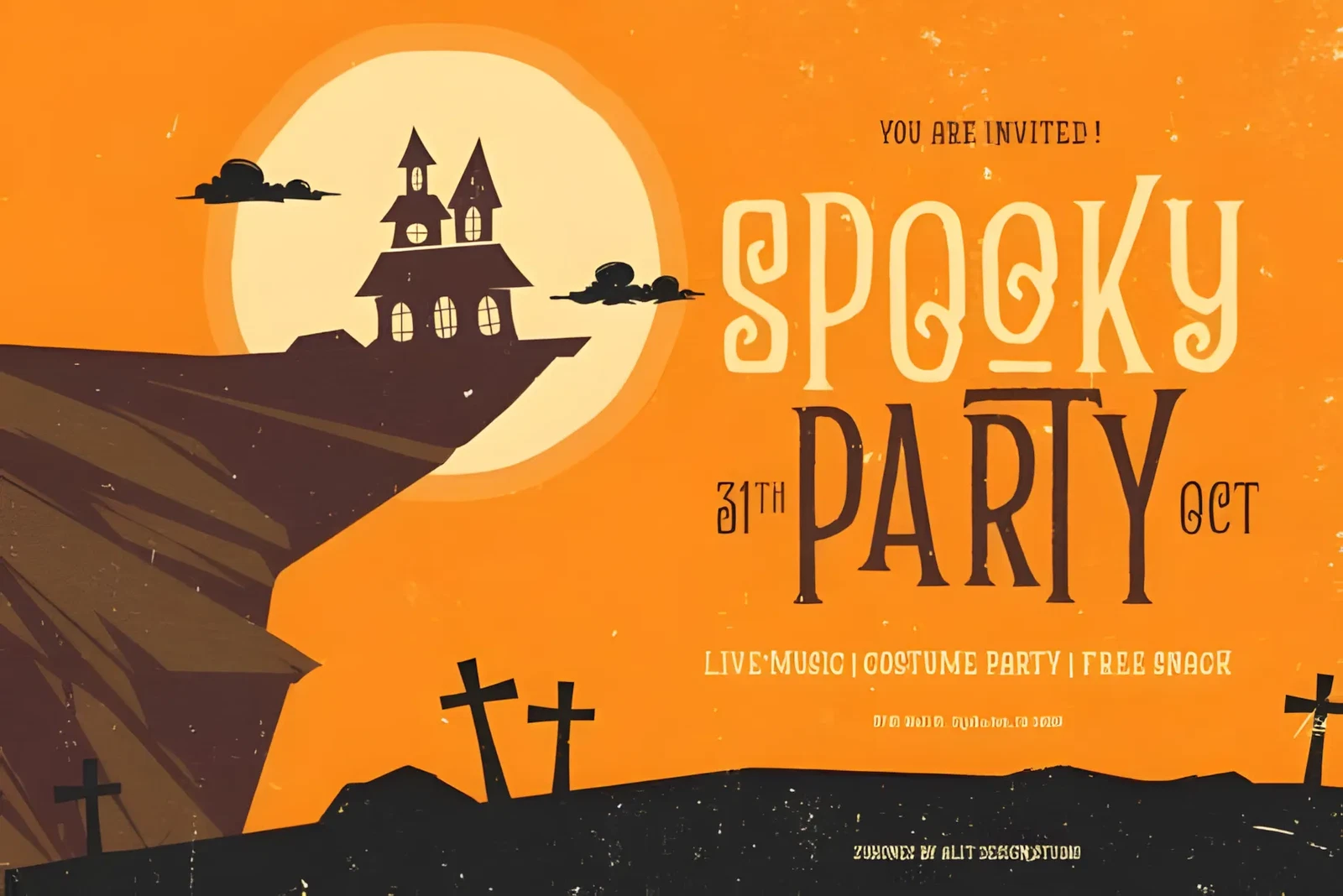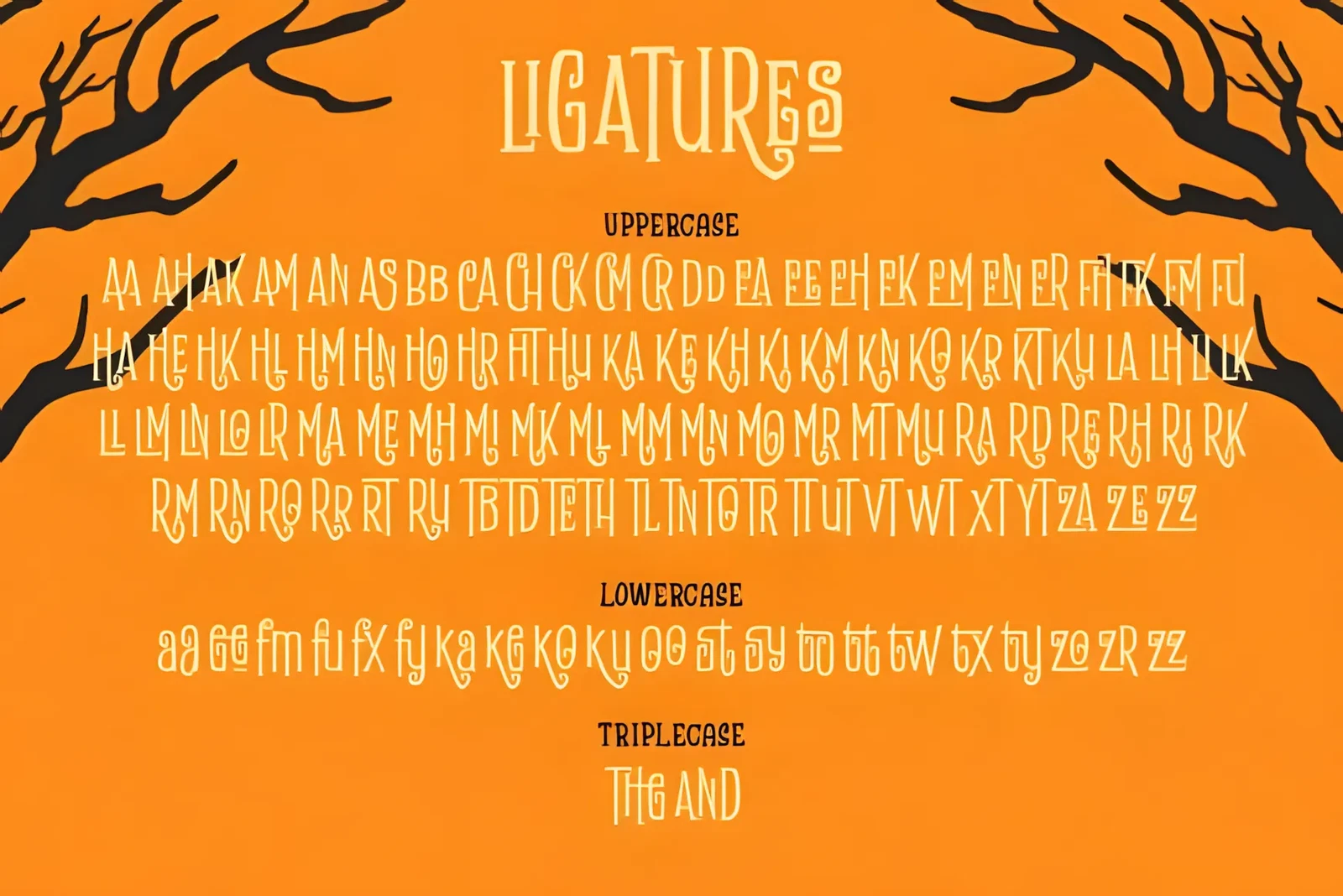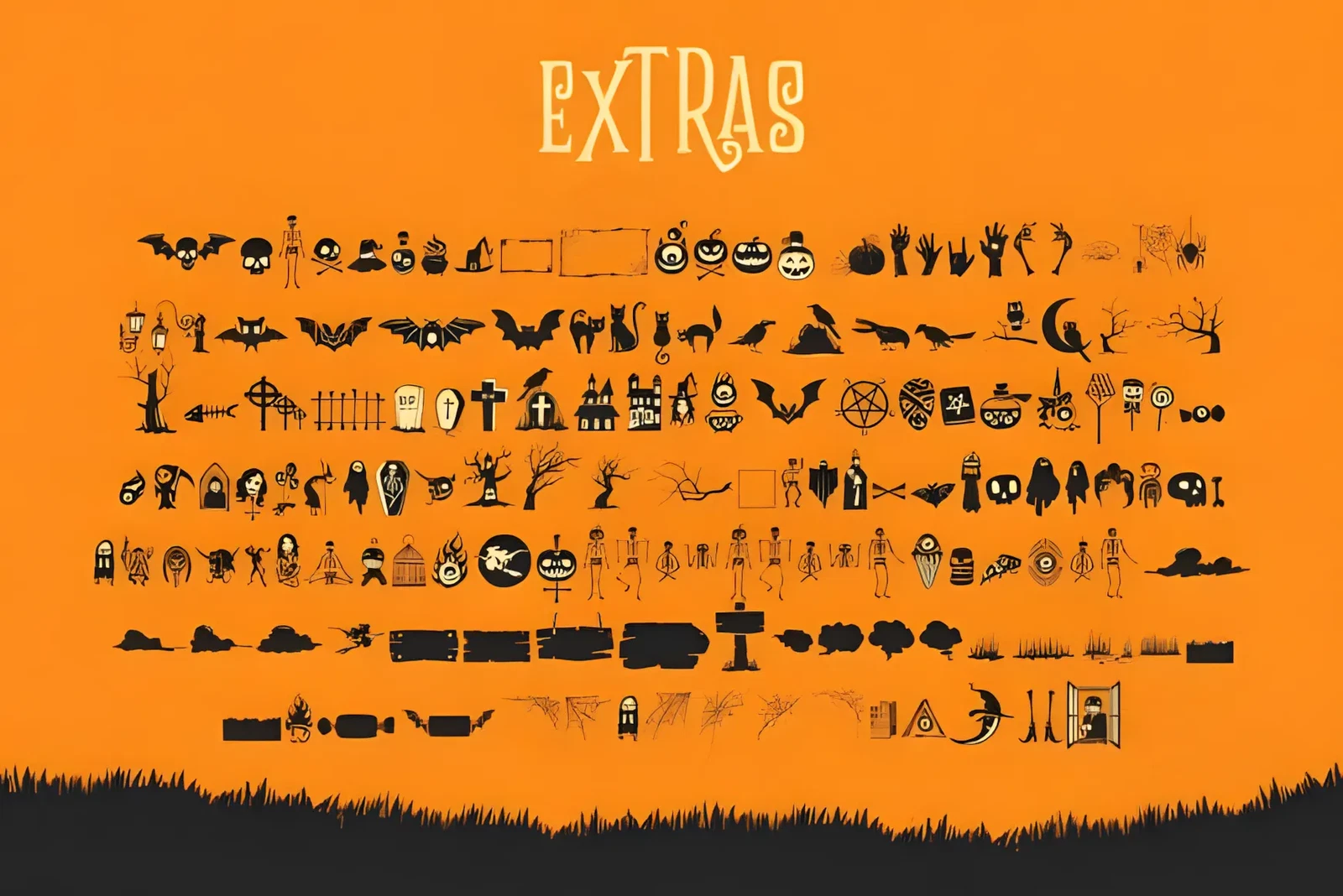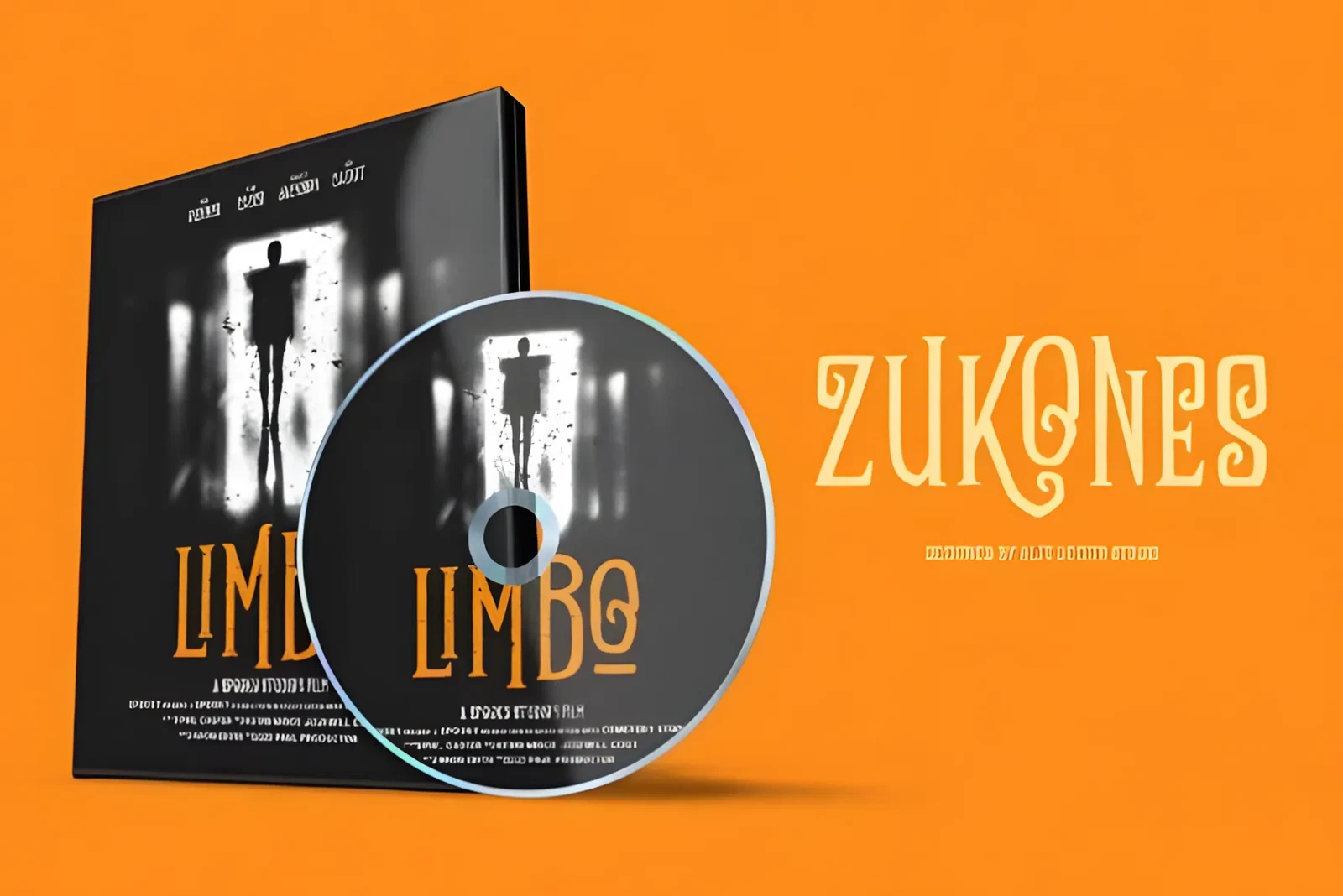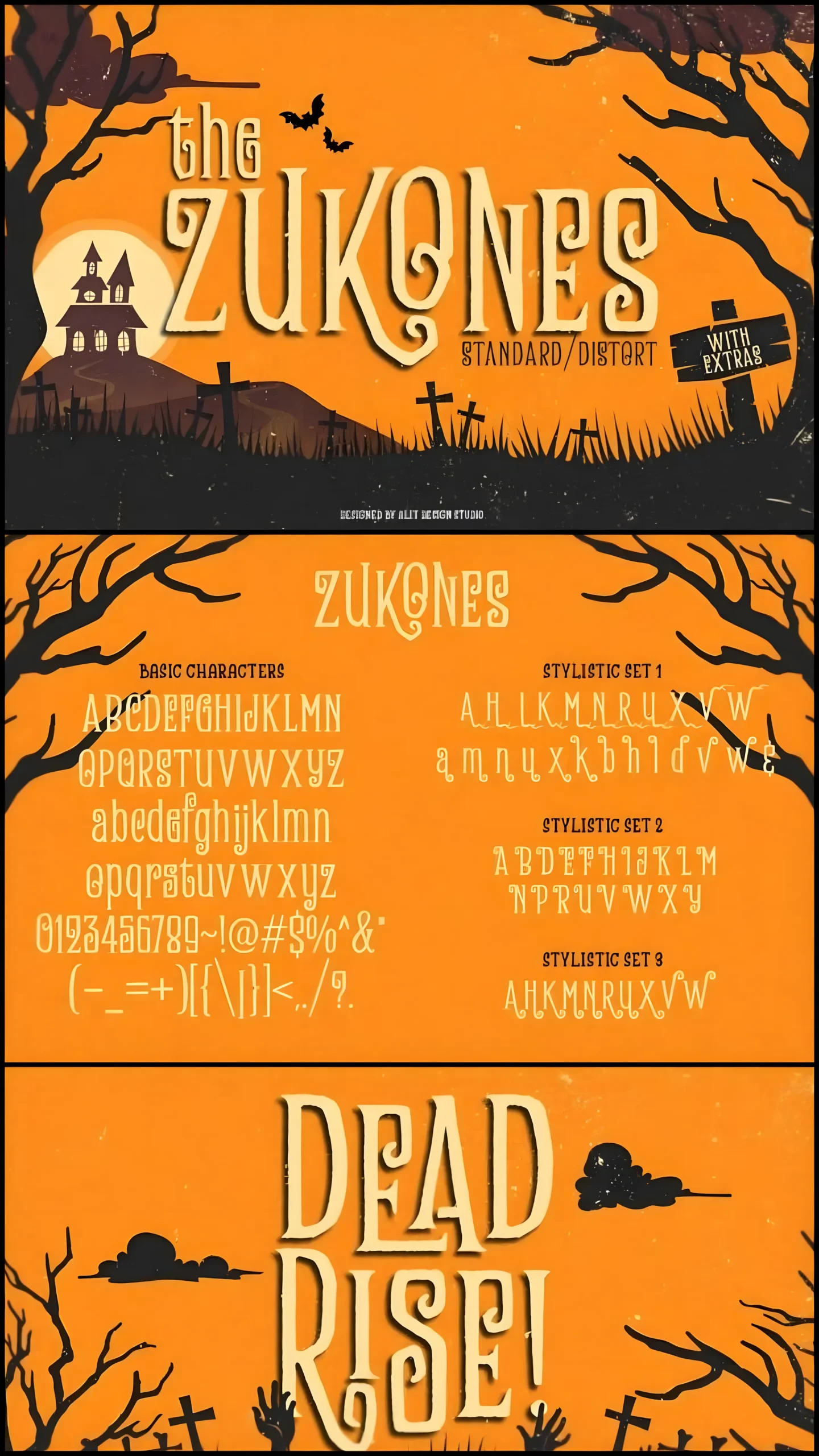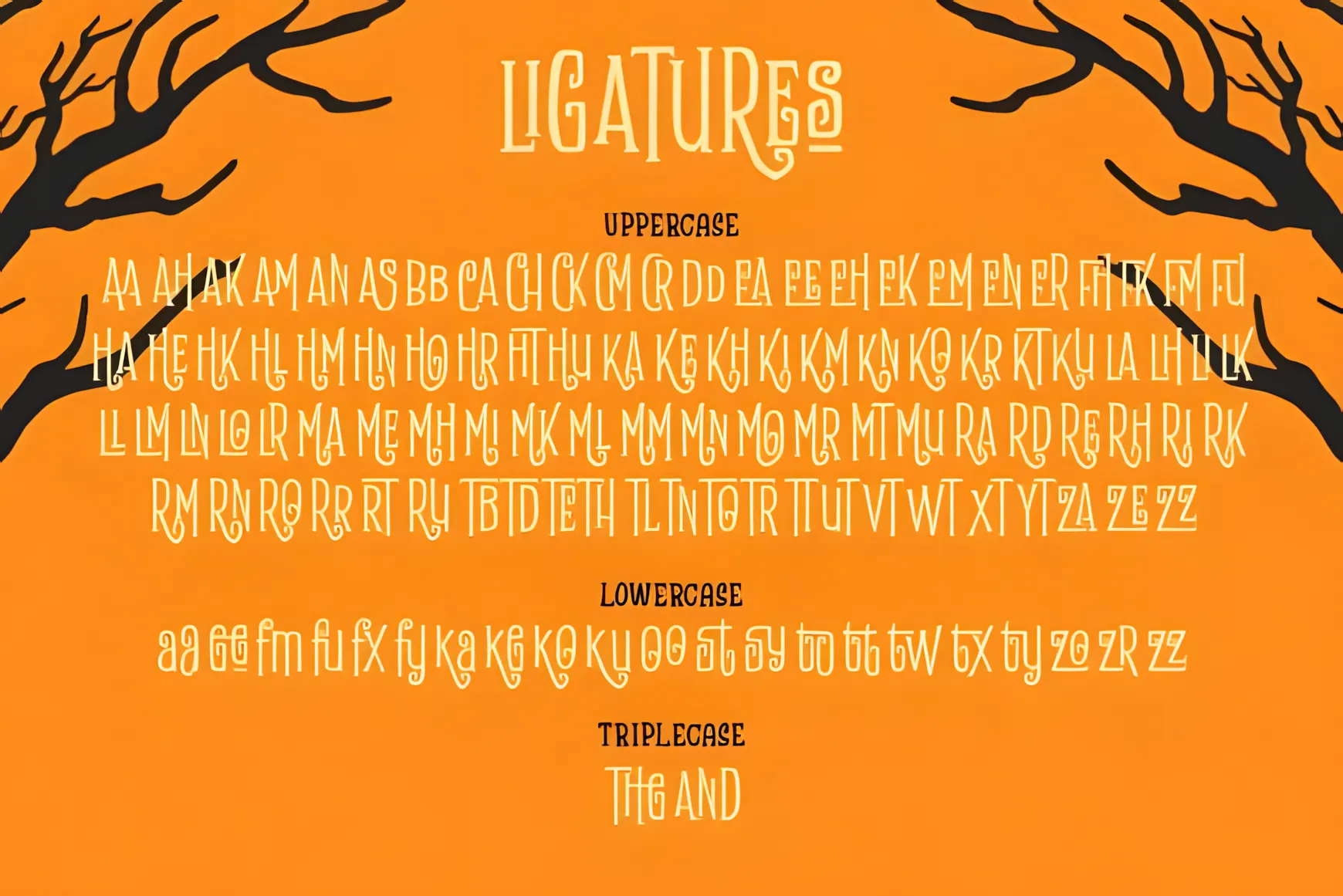
Some fonts feel like they were created for a moment, a vibe, or a personality — Zukones Font is one of those. It doesn’t feel generic or flat; it carries a visual attitude that makes design feel intentional without any heavy styling. That quality alone makes it stand out among decorative display typefaces.
This font’s character works surprisingly well across a range of creative projects. It’s not just a label font or a one-occasion choice — it adapts, feels confident, and gives designs a sense of visual identity from the first glance.
How Zukones Font Looks and Feels
The very first time I tested Zukones Font, what struck me was the balance. It has decorative touches and distinctive shapes, but it doesn’t feel messy or chaotic. Many decorative typefaces swing too far in one direction — either too ornate to be readable or too plain to be interesting. Zukones sits in the middle in a way that feels natural.
There’s a slightly futuristic, edgy quality in the letterforms. They aren’t script or classic serif, but they have personality and structure. That means the font works equally well in bold headlines or more subtle display text.
It’s neither playful nor serious — it feels unique without being distracting.
Where This Font Really Works
In design, context matters. It’s one thing for a font to look interesting, and a different thing for it to fit naturally into a variety of design needs. Here are the places where Zukones Font genuinely excels:
Branding and Logo Concepts
When a brand needs a typeface that feels modern and distinctive, this font becomes a viable option. It adds presence without requiring heavy graphic elements. That makes it useful for:
- startup identities
- tech or creative agency logos
- boutique product lines
- title imagery for visuals
The shapes are memorable without feeling forced, so the font enhances brand identity without stealing focus.
Posters and Visual Headlines
In posters, big typefaces need to work hard — they have to catch attention, communicate quickly, and not get lost in the composition. Zukones achieves this well. The visual energy in the letterforms gives headlines a strong position in the design, especially when paired with minimalist layouts or bold color contrast.
Social Media and Digital Graphics
For digital graphics where time from first glance to comprehension is short, this font performs solidly. It stays readable even in smaller headline sizes and offers enough personality to stand out amid typical social post fonts.
This makes it a smart pick for:
- Instagram and TikTok banners
- digital promotions
- event covers
- featured text in visuals
On screens, the letterforms remain crisp and intentional.
Merchandise and Apparel
Designs for apparel and merchandise often need a typeface that feels like a statement. Zukones Font can provide that. Whether it’s printed on t-shirts, hats, bags, or stickers, this typeface brings visual weight and personality to the design.
Because it’s not tied to any narrow theme, it works for different styles of merchandise — from streetwear to more conceptual product lines.
Technical and Readability Impressions
From a functional standpoint, the font has a few qualities worth noting:
- The letter spacing feels balanced
- Readability is strong even with decorative touches
- Works well at both large and medium sizes
- No awkward glyph shapes that fight for attention
These factors mean less time fixing spacing issues and more time polishing the design. A decorative font that behaves itself — that’s a rare win.
Pairing Zukones with Other Typefaces
While Zukones Font holds its own, it’s important to treat it like a display typeface — not a body text face. It shines when paired with neutral companions.
A few combinations that work well:
- Zukones (headlines) + clean sans (body)
- Zukones + understated serif for a refined contrast
- Zukones + minimalist script for artistic projects
The idea is to let Zukones take the visual lead while other fonts handle longer or supporting text. That creates hierarchy and keeps readability smooth.
Practical Applications
When thinking about real projects, this font is practical because it’s not tied to a specific theme like “holiday” or “retro.” Instead, it feels contemporary and flexible.
Here’s where it works well:
- Product packaging where a bold visual voice is needed
- Event posters and ticket designs
- Portfolio cover pages
- Creative agency branding
- Digital banners and featured headlines
- Small business logos
- Corporate presentation headers
Because the aesthetic feels modern yet grounded, it doesn’t force a niche narrative — it enhances whatever story the design is telling.
Why I Keep This Font in My Toolkit
The significance of a font isn’t measured just by how good it looks in isolation. It’s judged by how often it can be used without feeling out of place. That’s where Zukones Font delivers.
In a design toolkit full of safe choices and over-the-top decorative fonts, this typeface strikes a middle path — modern, adaptable, and stylistically confident. That makes it useful not just once, but across multiple types of projects, whether digital or print.
For designers seeking a decorative typeface that feels intentional and flexible, Zukones Font delivers — with style, presence, and purpose.